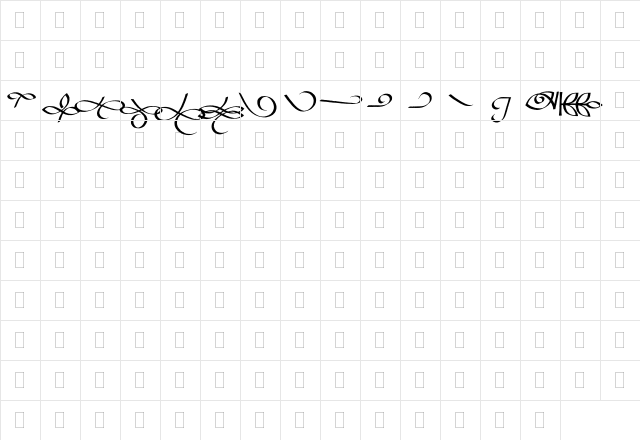
Bible Script Flourishes Plain
Design Context for Bible Script Flourishes Typeface
Bible Script Flourishes flows with the natural rhythm of handwritten lettering, making it ideal for designs that call for warmth and personal expression.
Font Pairing: Combine Bible Script Flourishes with a simple geometric sans for maximum contrast — the tension between flowing curves and clean structure is a classic typographic pairing.
Pro Tip: Pair Bible Script Flourishes with a clean sans-serif for supporting text. The contrast between fluid script and geometric structure creates an elegant typographic hierarchy.